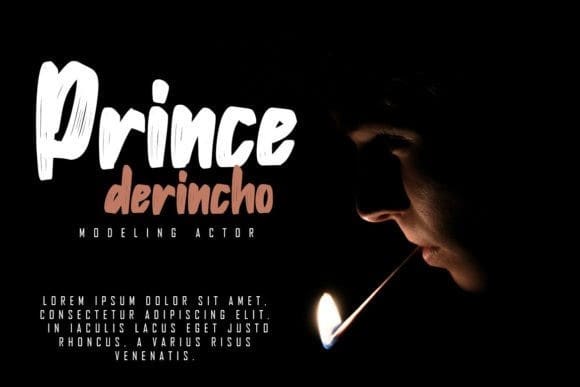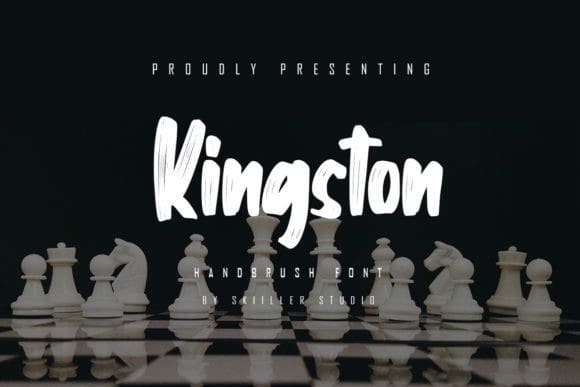
Kingston Brush Font
Kingston Brush Font is a modern and brushed display font crafted to give your headlines and logotype projects a stylish touch. This font reads as strong, confident, and dynamic, and can add tons of urban character to your designs.